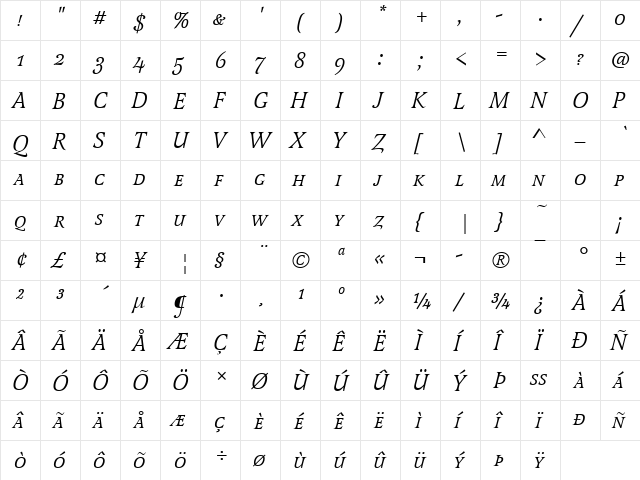
LatienneSCTReg Italic
LatienneSCTReg offers clean, dependable letterforms without strong stylistic allegiance, making it a practical choice for designers who need flexibility. The slanted form adds forward momentum and visual energy.